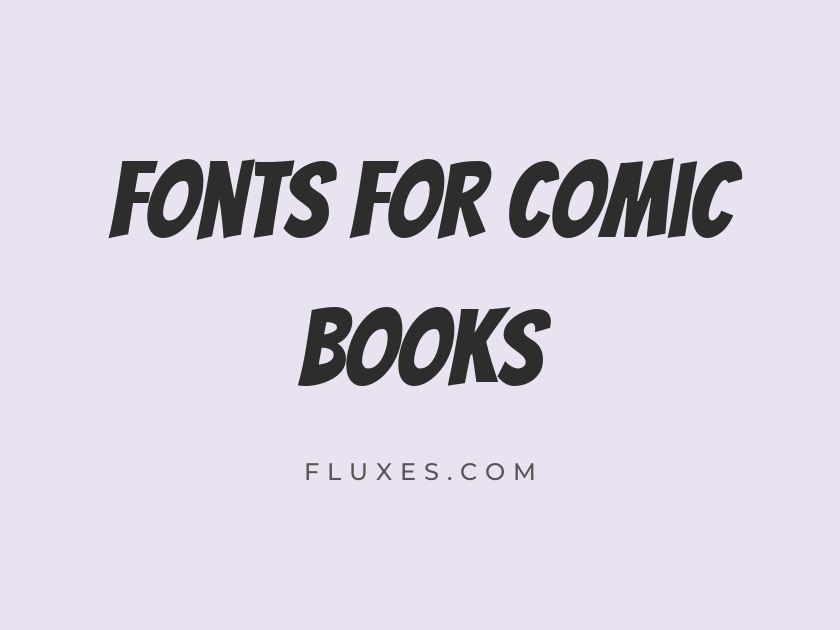
60 Best Fonts for Comic Books
Comic book lettering has its own visual language: punchy sound effects, hand-inked dialogue, dramatic villain type, and bold cover logos that read from across a shop. Finding free comic book fonts that capture that energy without infringing on classic lettering brands like Blambot’s own libraries is one of the most common hunts for indie creators, webcomic artists, and graphic novel designers. Google Fonts turns out to have a surprisingly deep bench for this, covering everything from POW-style sound effects to restrained hand lettering for long caption boxes.
What follows is a wide sweep of options organized loosely by mood, from shouting action titles to whispered horror captions, so you can build a full comic identity without leaving the free-font world.
1. Bangers
Bangers is the reigning champion of free comic book fonts, a rowdy, slightly wobbly display face built for exactly the kind of shouted exclamation its preview text demands. It was practically made for sound effects and cover logos, and it holds up at huge sizes without losing its scrappy, inked character.
2. Luckiest Guy
Chunky, rounded, and a little cartoonish, Luckiest Guy leans more toward the friendly side of comic lettering than the gritty side. It works beautifully for kids’ comics, humor strips, and any title that wants bounce over menace.
3. Permanent Marker
This one looks exactly like its name suggests, and that authenticity is the whole appeal. It suits sound effects, graffiti-style captions, and any moment where a comic wants to feel scribbled in real time rather than typeset.
4. Titan One
Titan One brings inflated, balloon-like letterforms with a heavy outline feel, which makes it a strong pick for superhero logo work and cover mastheads.
5. Bungee
Bungee has an urban-signage boldness that reads more like a street sign than a book page, which is exactly why it works so well for gritty, city-set comics and vigilante titles.
6. Bungee Shade
The layered, dimensional version of Bungee adds a printed-poster depth that suits vintage pulp covers and retro superhero revivals particularly well.
7. Bungee Inline
An outlined, almost neon-tube variant of the same family, useful for masthead work that needs to feel lit up rather than solid ink.
8. Bowlby One
Bowlby One is round, heavy, and confident, closer in spirit to a vintage cereal-box logo than a horror comic, which makes it an underrated choice for lighthearted superhero branding.
9. Bowlby One SC
The small-caps sibling to Bowlby One trades a little playfulness for formality, which suits anthology titles and collected-edition covers.
10. Alfa Slab One
A heavy slab serif with real weight and presence, Alfa Slab One can anchor a cover title the way a hand-carved woodblock print would, giving pulp adventure comics a stamped, permanent feel.
11. Passion One
Rounder and friendlier than most slab display faces, Passion One at its bold weight makes a dependable chapter-title or subhead font when the cover logo needs something bigger and louder.
12. Fjalla One
Fjalla One is a condensed sans with quiet confidence, a good fit for caption boxes, credits pages, and any text that needs to stay legible without competing with louder lettering nearby.
13. Anton
Anton is about as bold and condensed as a free font gets, built for headlines that need to scream from a newsstand rack. It is a natural pick for cover logos and splash-page titles where every letter has to fight for attention.
14. Bebas Neue
Clean, tall, and endlessly useful, Bebas Neue has become a default for modern comic covers and credits blocks alike. It lacks the hand-lettered charm of dedicated comic fonts, but that restraint is exactly why it pairs so well with wilder display type elsewhere on the page.
15. Sigmar One
Sigmar One is stout, rounded, and a bit cheeky, closer to a 1970s Saturday-morning cartoon logo than a modern graphic novel. Great for humor comics and mascot branding.
16. Boogaloo
A bouncy, casual display face with just enough swing to feel hand-drawn, Boogaloo suits comic strips aimed at younger readers or lighter all-ages titles.
17. Baloo 2
Rounded and sturdy, Baloo 2 works as a friendly, highly legible alternative to sharper comic display faces, particularly for children’s comics or educational graphic novels.
For webcomics, test your chosen dialogue font at the actual balloon size you plan to use. Some hand-lettered fonts that look charming at large sizes turn muddy once shrunk into a small speech bubble.
Sound effect fonts like Bangers or Luckiest Guy work best rotated, scaled unevenly, or layered with color to feel truly explosive rather than static.